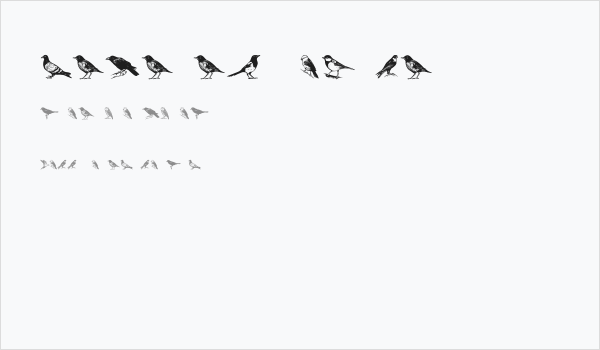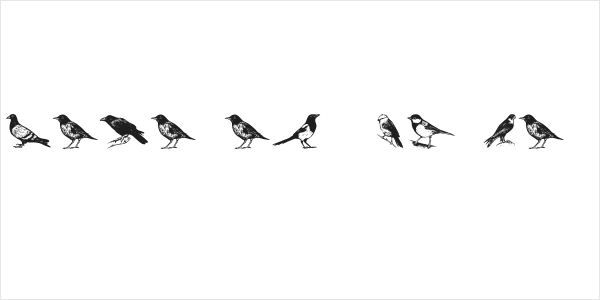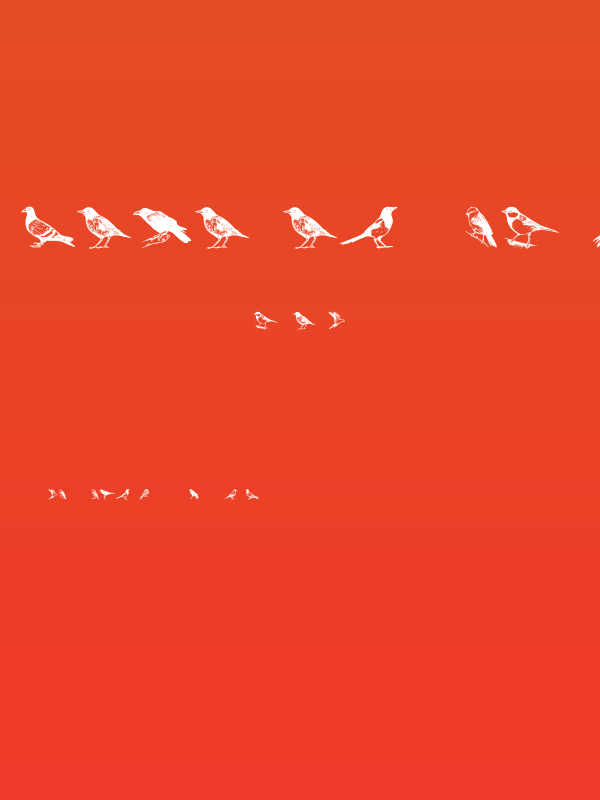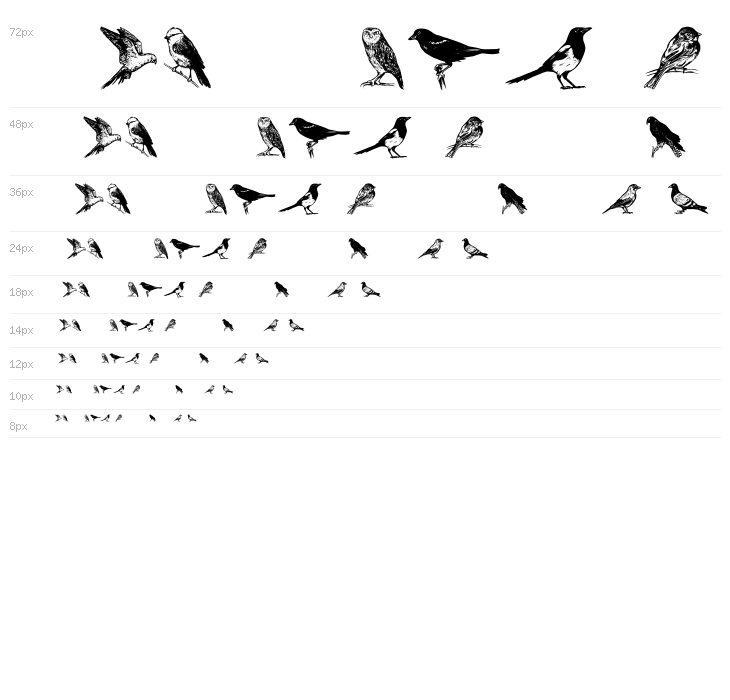
Madarak Regular Font
Madarak Regular Description
This set features detailed, hand-drawn illustrations of various birds, each representing a different character. The style is realistic with intricate line work and shading, giving each bird a unique and natural appearance.
| Overall Style | Decorative, Naturalistic, Artistic |
| Use Case | Logos, Posters, Decorative elements, Themed graphics |
| Proposed Projects | Nature-themed designs, educational materials, creative posters, decorative borders, and wildlife branding. |